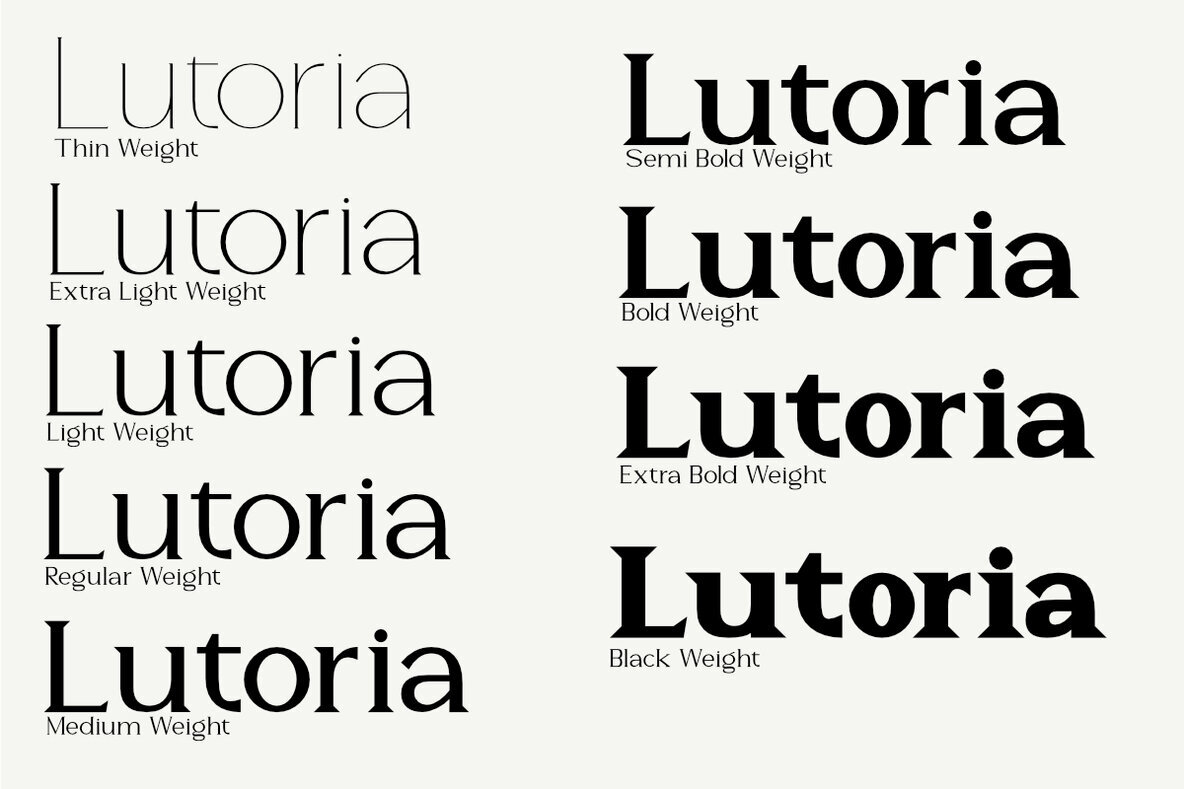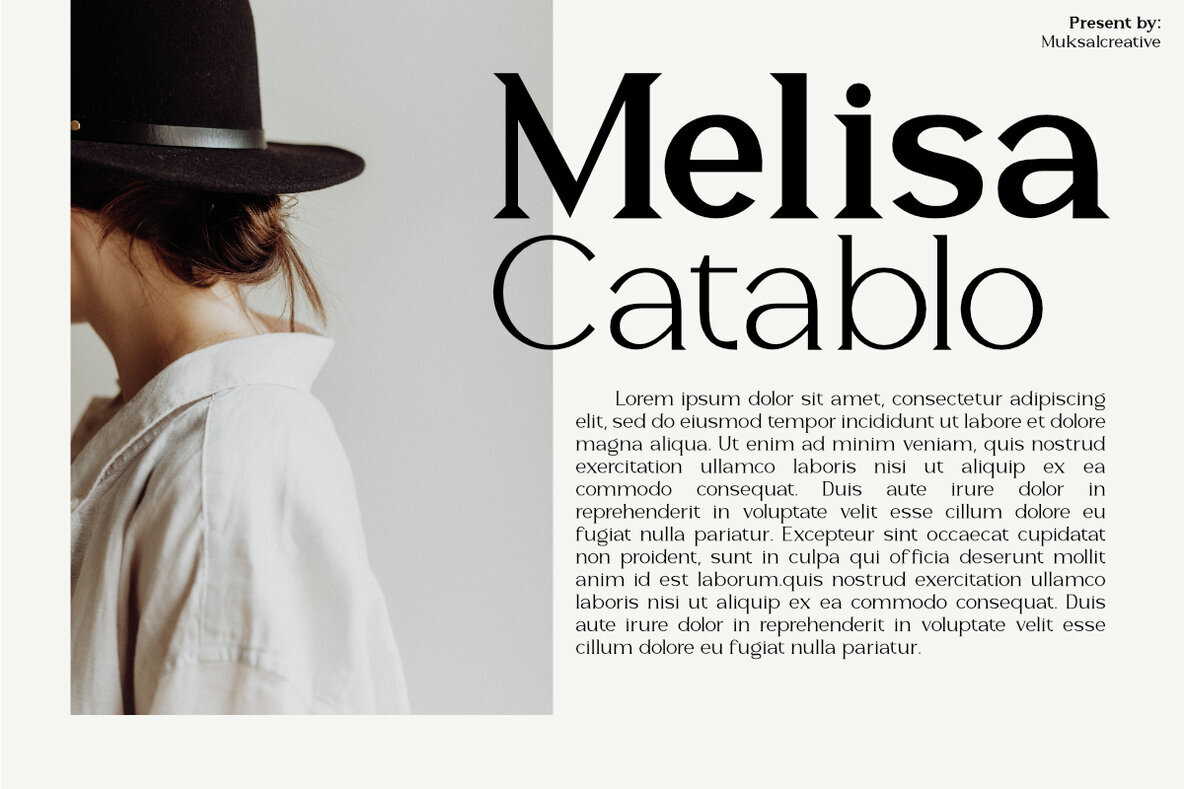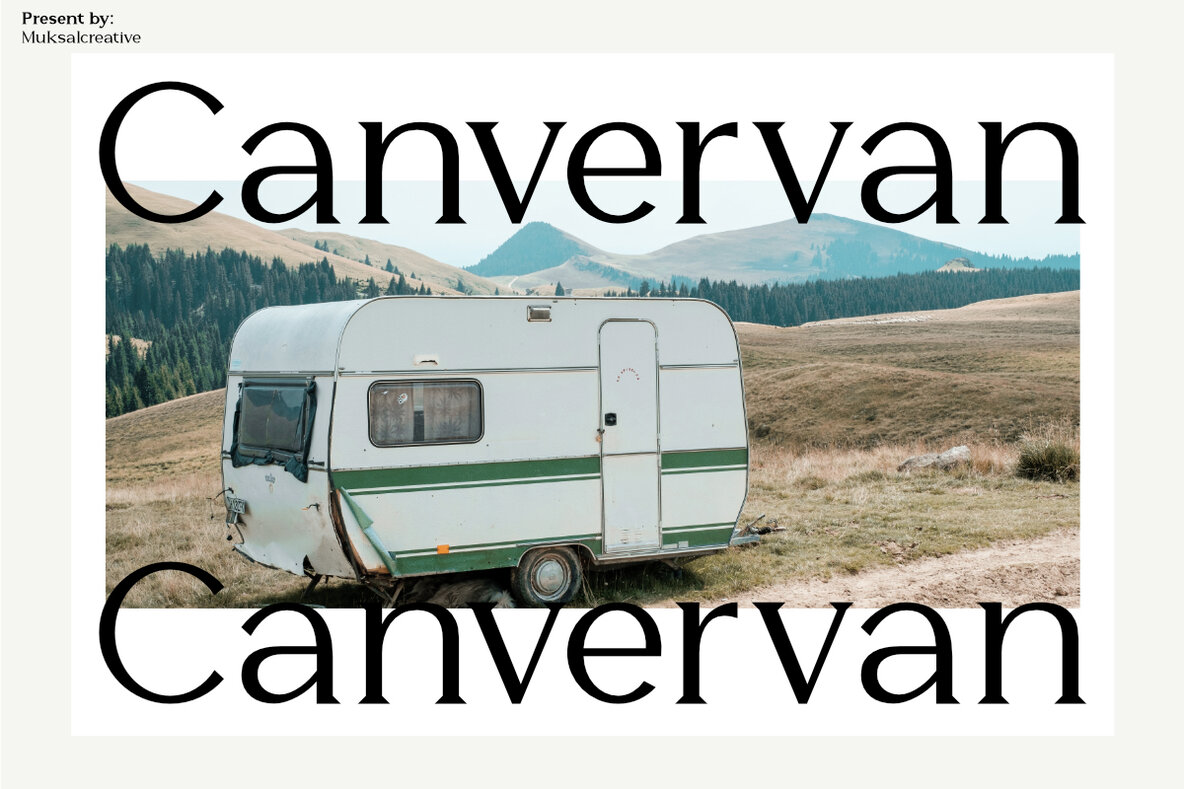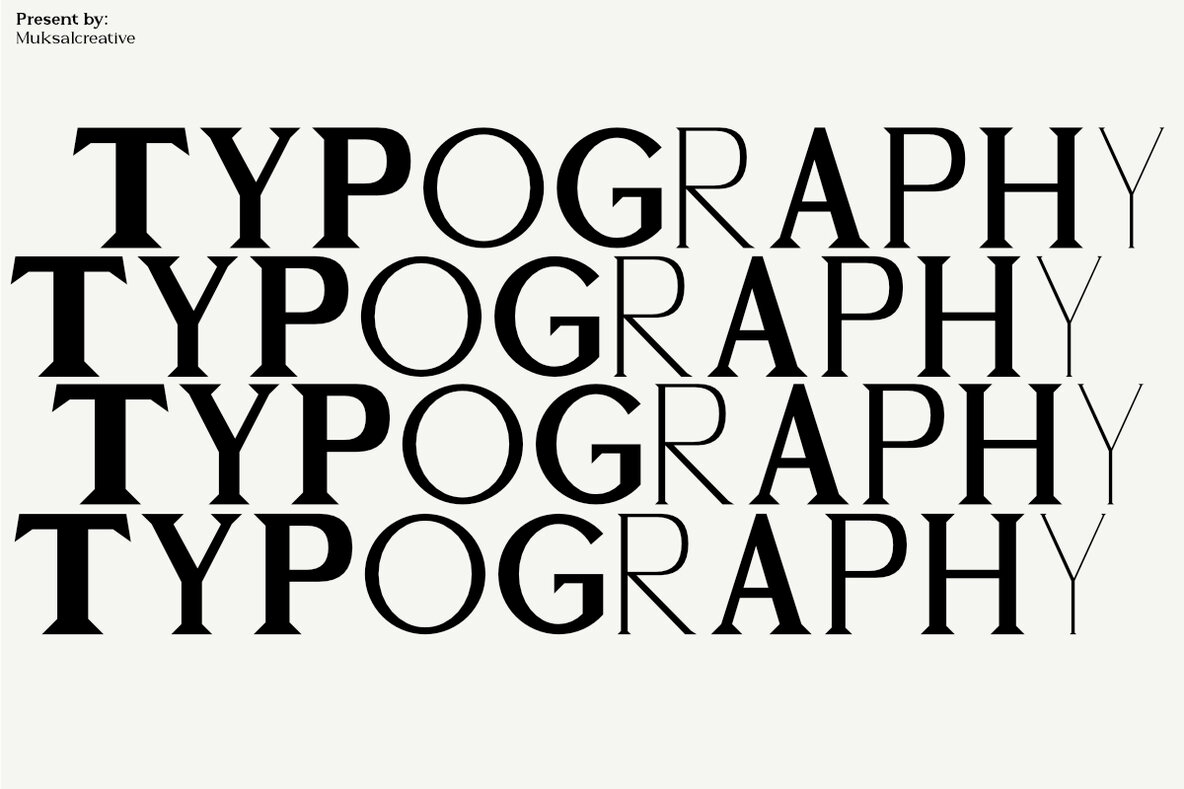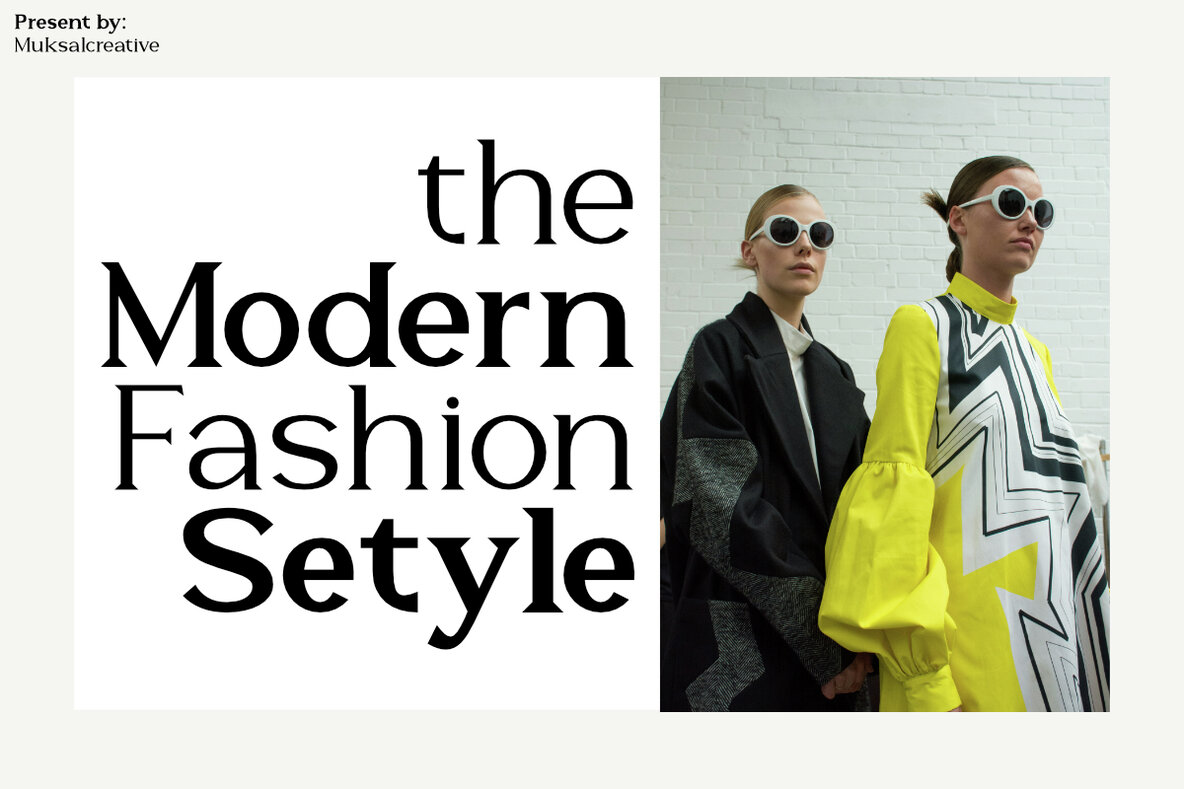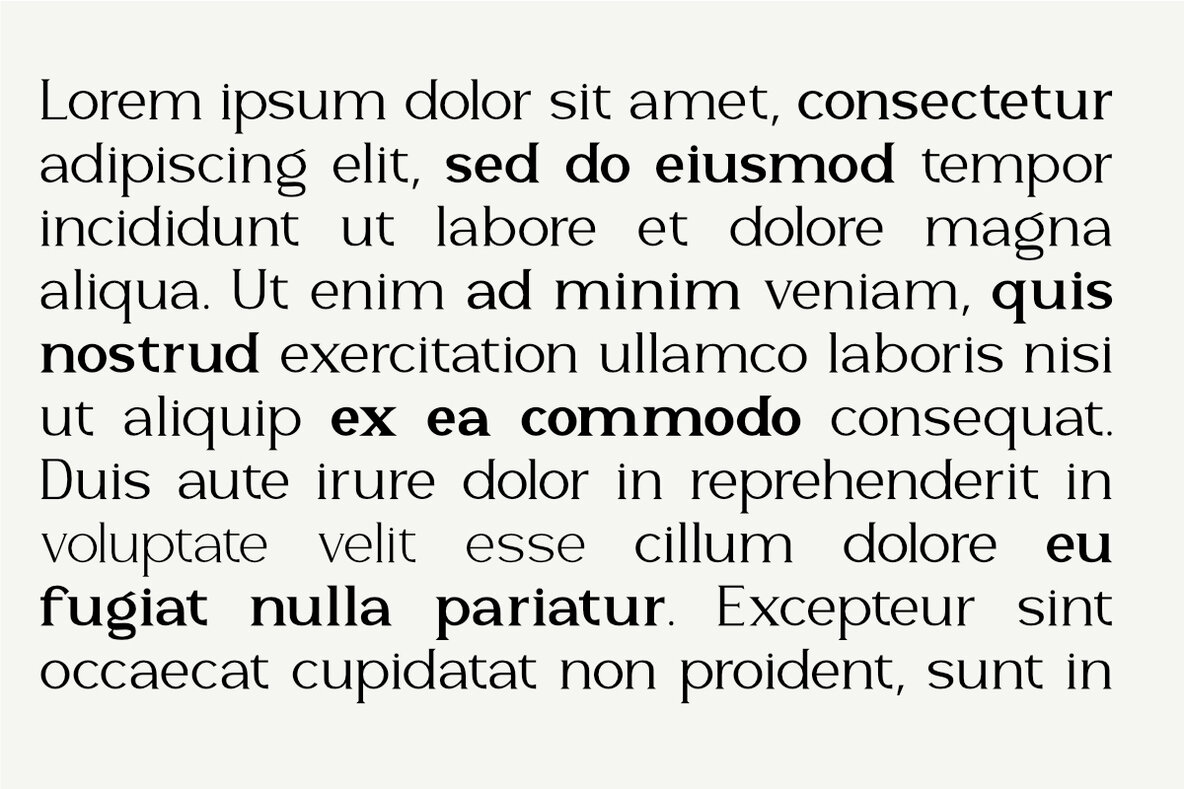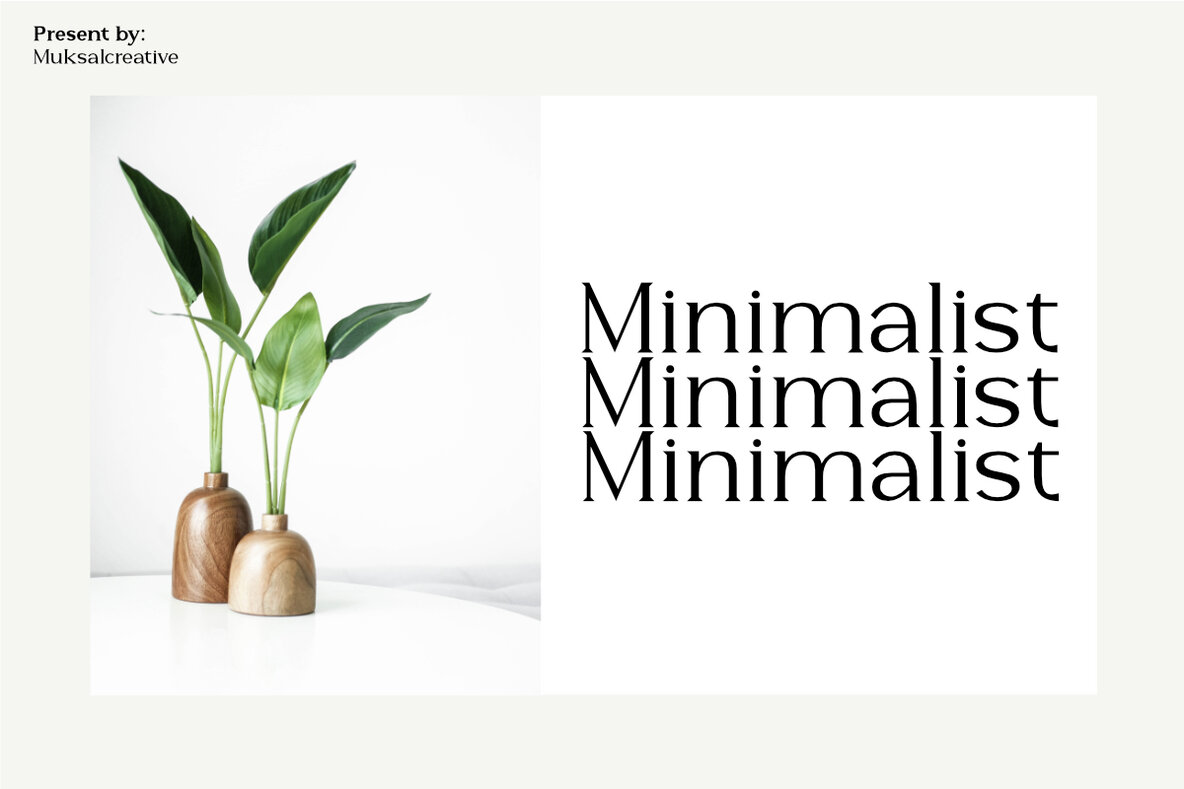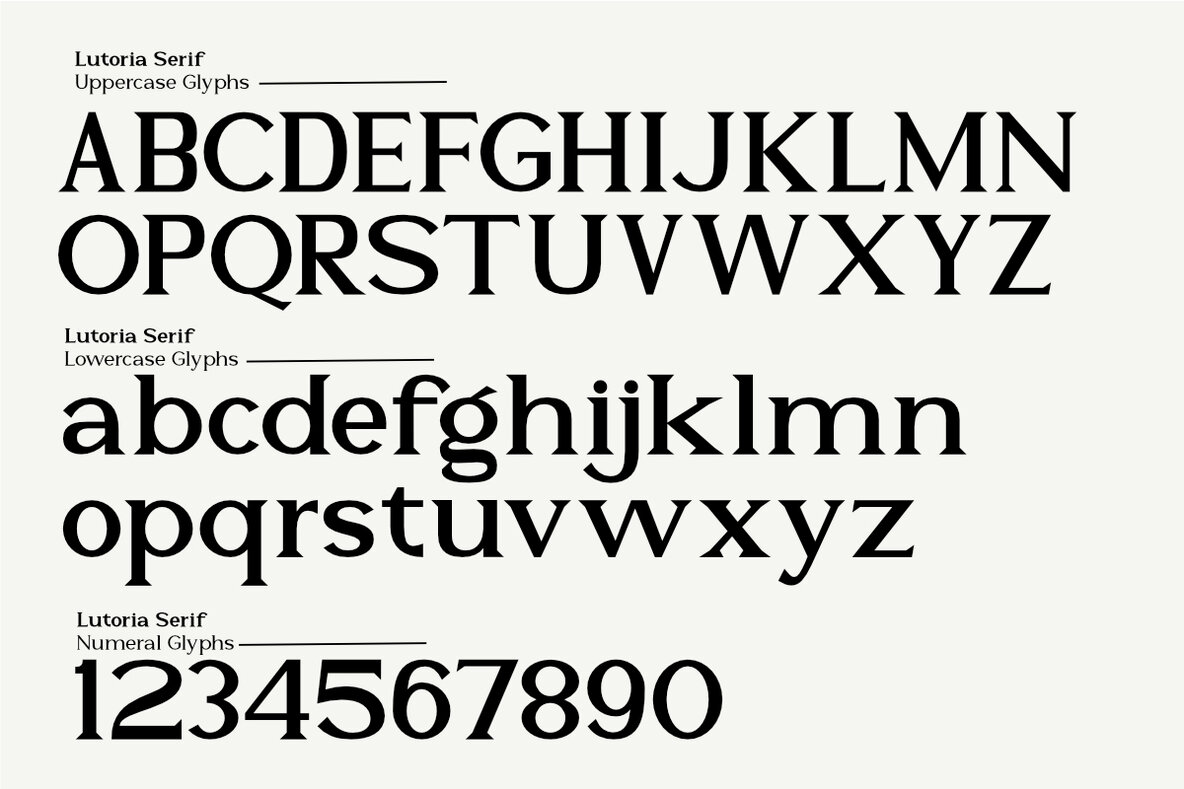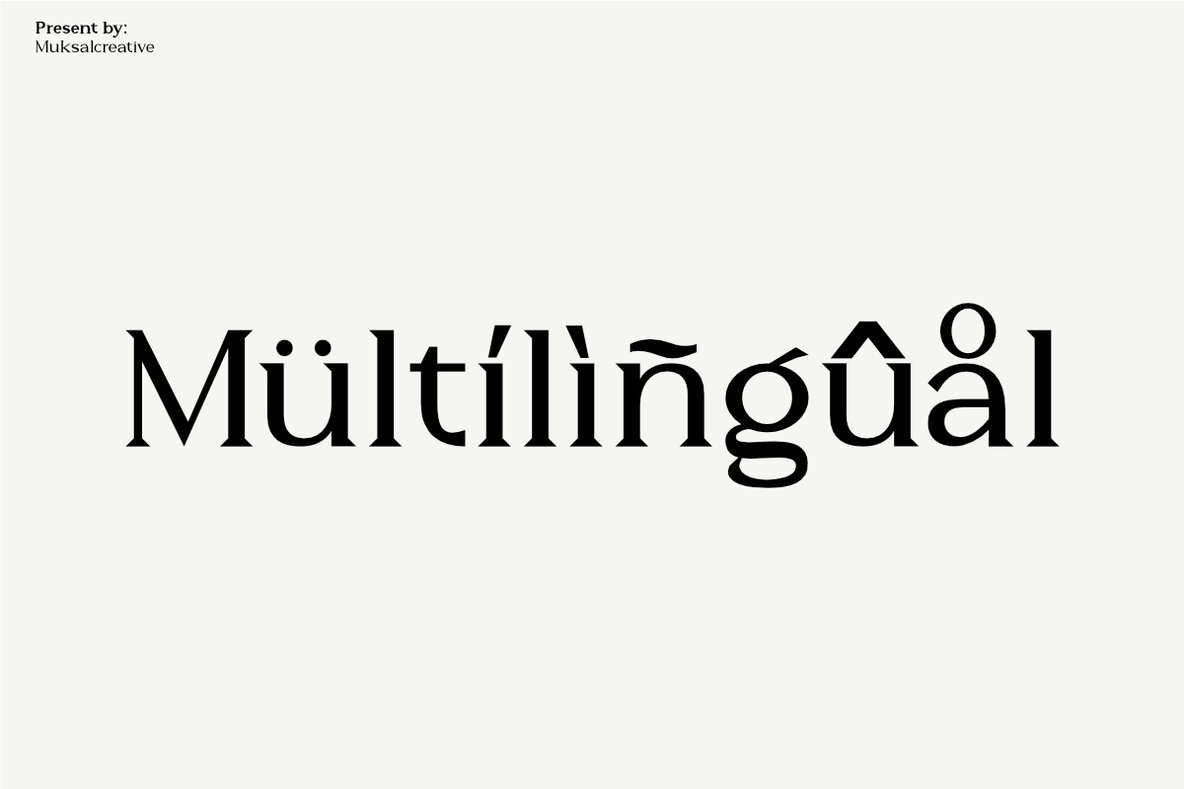
Lutoria Serif Font
This serif font boasts an elegant and classic design, making it perfect for projects that require a timeless and traditional touch. Ideal for books, literature, and editorial design, this font ensures readability and legibility over extended reading. Its refined and formal style also suits brochures, publications, and sophisticated branding efforts.